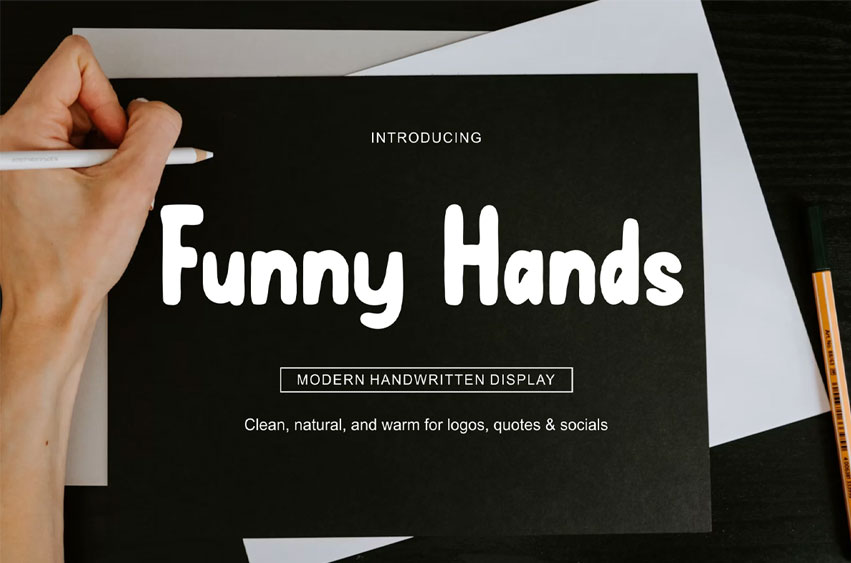
Funny Hands Font Clean Handwritten Font is a bold and authentic display font. The font is suitable for any branding project like logo, esport, and many more.